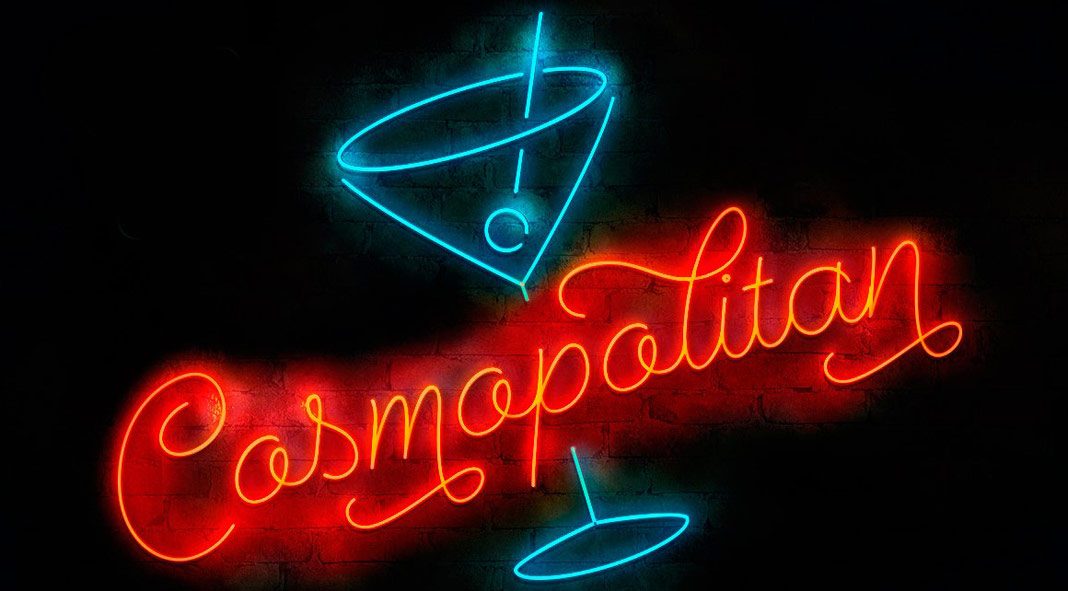
Cosmopolitan, a monoline font family from foundry Fenotype.
Designed in 2016 by Emil Karl Bertell of foundry Fenotype, the Cosmopolitan font family consists of an elegant script and sans typeface in five different weights plus printed versions and lots of extras. The set of extras includes stylish swashes, swirls, and pictograms. Cosmopolitan’s script version also includes numerous OpenType alternates. The sans version comes with different swash alternates for both upper and lowercase letters.